Off Type
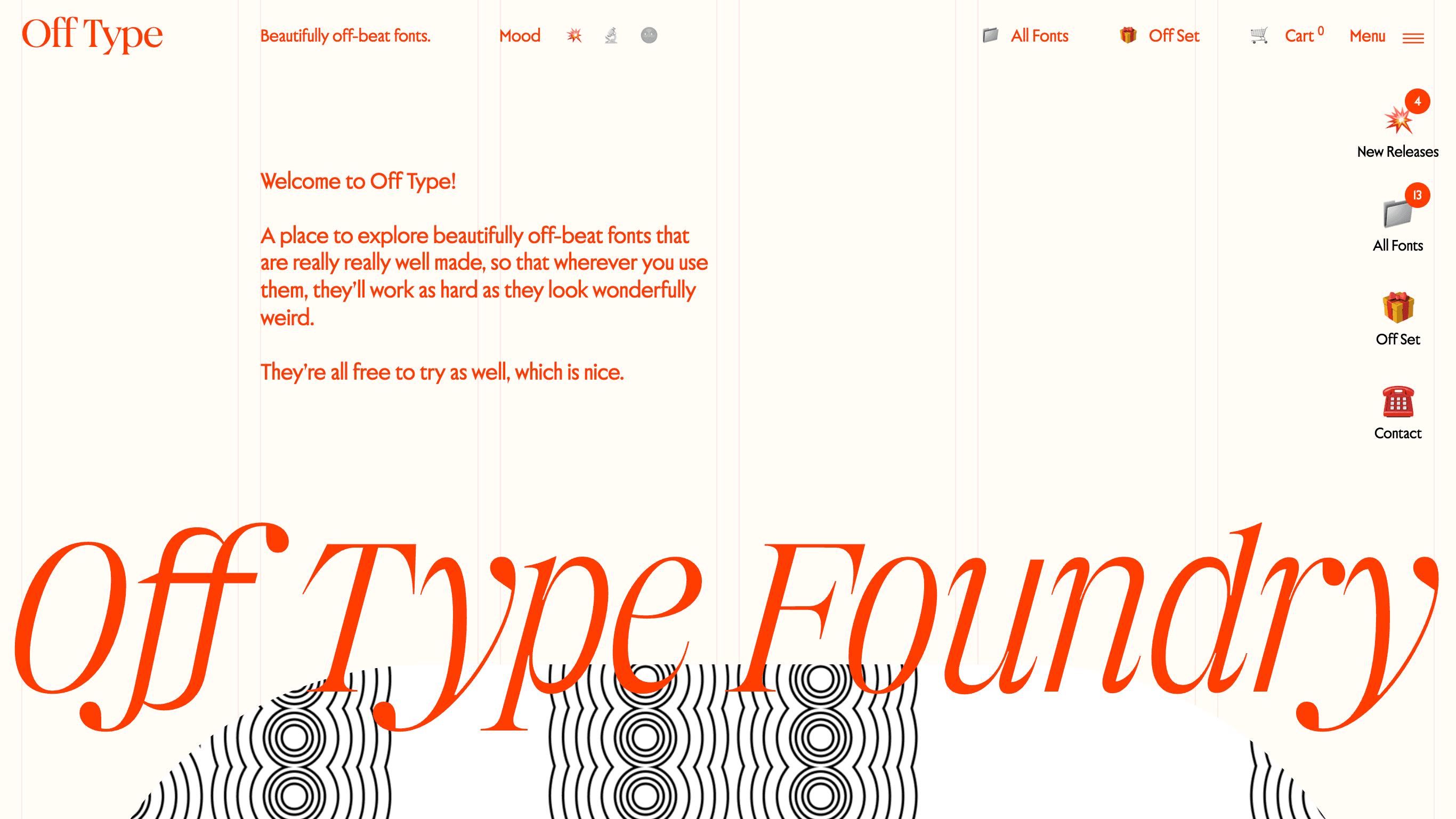
Off Type is an independent digital type foundry celebrated for its bold and inventive fonts that blend historical influences with a modern, often quirky sensibility. Closely associated with Pangram Foundry, Off Type’s creations push the boundaries of type design. Pergamon reimagines digital calligraphy, taking inspiration from a classic, polarizing style and giving it a fresh, contemporary twist while supporting both Latin and Greek scripts. Off Type has created distinctive typefaces like Pergamon, Bulb, 2049, Neue Montreal Squeezed, Miniature, and Jubilee, blending historical influences with modern design, offering unique styles, extensive glyph support, and broad script compatibility.